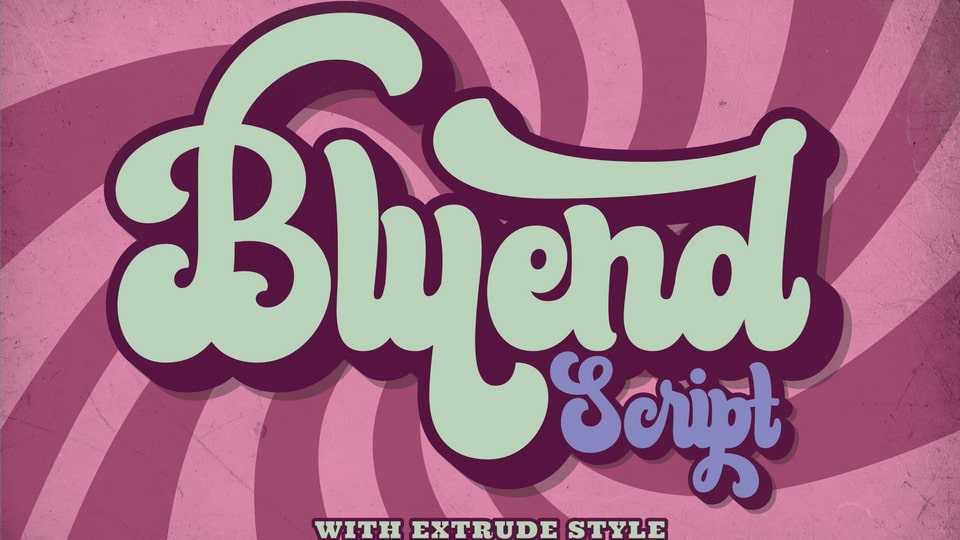
Download Bluend font, a bold retro-style script display typeface. With a retro and groovy vibe, Bluend font is suitable for a wide pool of design ideas.